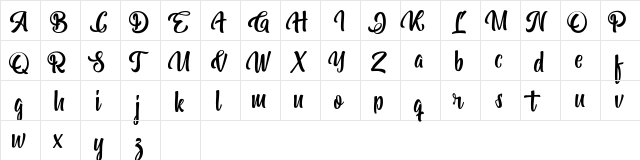
Bohemian Melody Regular
Design Context for Bohemian Melody Typeface
Bohemian Melody is a composed and adaptable typeface that performs quietly and consistently across a wide range of design contexts.